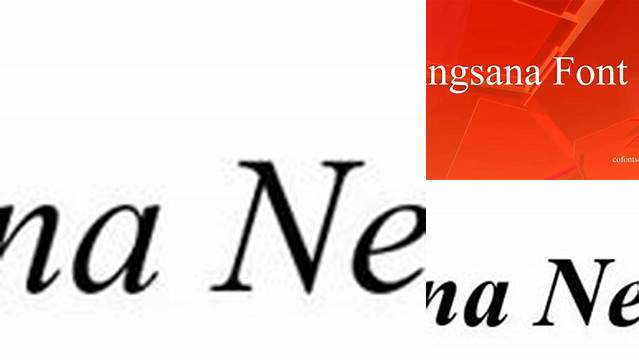
Angsana New Italic Font: Free Download & Usage Guide
Introduction to Angsana New Italic Font
Hey guys! Ever stumbled upon a font that just clicks? Well, let me introduce you to Angsana New Italic, a font that’s been a favorite for designers and casual users alike. This font isn't just another typeface; it's a blend of elegance and readability, making it perfect for a wide array of projects. Whether you're crafting a professional document, designing a website, or simply looking to spice up your social media posts, Angsana New Italic is a stellar choice. Its italicized style adds a touch of sophistication, making your text stand out while maintaining clarity. The balanced strokes and distinct letterforms ensure that your message is conveyed effectively, capturing the reader’s attention without overwhelming them. Seriously, the aesthetic appeal of this font is something else – it manages to be both modern and timeless, a rare feat in the world of typography. From invitations to reports, Angsana New Italic seamlessly fits into various contexts, enhancing the overall visual appeal of your work. And the best part? You can get it for free! We're diving deep into how you can download and use this fantastic font, so stick around.
The Appeal and Versatility of Angsana New Italic
So, why is Angsana New Italic so popular? Let’s break it down. First off, its legibility is top-notch. The characters are well-defined, ensuring that your text remains readable even at smaller sizes. This is crucial for documents, websites, and any medium where clear communication is key. Imagine reading a paragraph in a cluttered, hard-to-read font – frustrating, right? Angsana New Italic avoids this pitfall, offering a smooth and pleasant reading experience. But it's not just about practicality; this font also brings a certain flair to the table. The italic styling adds a touch of elegance and sophistication, making it ideal for projects where you want to convey a sense of professionalism or creativity. Think about it: a wedding invitation, a business report, or even a stylish blog post – Angsana New Italic can elevate each of these with its refined appearance. What truly sets Angsana New Italic apart is its versatility. It plays well with other fonts, making it easy to incorporate into existing designs. You can pair it with a bold sans-serif for headings or a classic serif for body text – the possibilities are endless. This adaptability makes it a valuable asset for any designer or content creator. Plus, its availability as a free download means you can access high-quality typography without breaking the bank. It's a win-win situation, really.
Key Features and Design Elements
Let’s get into the nitty-gritty of what makes Angsana New Italic tick. This font boasts a range of features that contribute to its overall appeal and usability. One of the standout elements is its balanced design. The strokes are neither too thick nor too thin, creating a harmonious visual rhythm that’s easy on the eyes. This balance is crucial for maintaining readability, especially in longer texts. The italic styling itself is beautifully executed, with a subtle slant that adds elegance without sacrificing clarity. It’s not overly stylized, which means it remains versatile enough for a variety of applications. Each character in Angsana New Italic has been carefully crafted, ensuring consistency across the entire typeface. This attention to detail is what elevates it from a simple font to a truly professional tool. The letterforms are distinct and well-defined, making it easy to differentiate between characters, even at smaller sizes. This is particularly important for body text, where readability is paramount. Beyond the individual characters, Angsana New Italic also excels in its spacing and kerning. The spacing between letters is just right, preventing them from appearing either too crowded or too far apart. This contributes to the overall legibility and visual appeal of the font. The kerning – the adjustment of spacing between specific pairs of letters – is also well-handled, ensuring a polished and professional look. These subtle details might seem minor, but they make a world of difference in the overall quality of the font.
How to Use Angsana New Italic in Your Projects
So, you’ve downloaded and installed Angsana New Italic – awesome! Now, let’s talk about how to actually use this fantastic font in your projects. Angsana New Italic is incredibly versatile, but like any tool, it’s best used thoughtfully. Think about the overall tone and style you’re aiming for in your project. Is it professional, elegant, or creative? Angsana New Italic can fit into many contexts, but it’s important to consider how it complements your other design elements. In general, Angsana New Italic works well for body text, especially when you want to add a touch of sophistication. Its clear and legible letterforms make it easy to read, even in longer passages. It’s also a great choice for headings and subheadings, where its italic styling can create a visual hierarchy and draw attention to key information. However, be mindful of using it sparingly for headings, as too much italic text can become overwhelming. When pairing Angsana New Italic with other fonts, consider using a sans-serif font for headings and Angsana New Italic for the body text. This creates a nice contrast and visual balance. Alternatively, you can pair it with a classic serif font for a more traditional look. Experiment with different combinations to see what works best for your project. Angsana New Italic is also a solid choice for print materials, such as brochures, flyers, and invitations. Its elegant style can elevate the look of your printed documents, making them more visually appealing. In the next sections, we’ll dive deeper into specific use cases and best practices for incorporating Angsana New Italic into your designs.
Best Practices for Incorporating Angsana New Italic in Design
To really make Angsana New Italic shine, let’s go over some best practices for incorporating it into your designs. First and foremost, readability is key. While Angsana New Italic is generally legible, it’s important to consider the context in which it’s being used. Make sure the font size is appropriate for the medium – what looks good on a large poster might not work well on a small screen. Also, pay attention to the contrast between the text and the background. If the text is too similar in color to the background, it will be difficult to read. Opt for a high-contrast combination, such as black text on a white background, or vice versa. Another important factor is letter spacing and line height. Adjusting these settings can significantly impact the readability of your text. If the letters are too close together, they’ll become cramped and difficult to distinguish. If the line height is too tight, the text will feel cluttered. Experiment with different settings to find the sweet spot. When using Angsana New Italic, it’s also crucial to avoid overusing it. While its elegant style is appealing, too much italic text can become distracting and make your design look cluttered. Use it strategically to highlight key information or add a touch of sophistication, but don’t let it dominate your entire design. Consider using Angsana New Italic for quotes, captions, or callouts, where its unique style can add visual interest without overwhelming the reader. Remember, less is often more when it comes to typography. In the following sections, we’ll explore some specific examples of how Angsana New Italic can be used in different design projects.
Real-World Examples and Use Cases
Okay, let’s get practical and look at some real-world examples of how Angsana New Italic can be used. This will give you a better sense of its versatility and how you can incorporate it into your own projects. First up, consider using Angsana New Italic for invitations. Its elegant style makes it a perfect choice for wedding invitations, party invites, and other special events. The italic styling adds a touch of sophistication, making your invitations look polished and professional. You can pair it with a simple sans-serif font for the details, such as the date, time, and location. Another great use case is in business documents. Angsana New Italic can elevate the look of your reports, presentations, and memos. Its clear and legible letterforms ensure that your message is conveyed effectively, while its elegant style adds a touch of professionalism. Use it for headings, subheadings, and even body text to create a cohesive and visually appealing document. Angsana New Italic is also an excellent choice for website design. You can use it for headings, subheadings, and body text to create a stylish and readable website. Its versatility allows it to fit into various design aesthetics, from modern to traditional. Just be mindful of the font size and contrast to ensure optimal readability on different devices. For marketing materials, such as brochures and flyers, Angsana New Italic can add a touch of elegance and sophistication. Use it to highlight key information, such as headlines, taglines, and calls to action. Its unique style will help your marketing materials stand out and capture the attention of your audience. These are just a few examples, guys. The possibilities are endless! Angsana New Italic is a versatile font that can be used in a wide range of projects.
Conclusion: The Enduring Appeal of Angsana New Italic
Alright, guys, we’ve reached the end of our journey into the world of Angsana New Italic. I hope you’ve found this guide helpful and that you’re now ready to download and use this fantastic font in your own projects. Let’s recap what we’ve covered. Angsana New Italic is a versatile and elegant font that’s perfect for a wide range of applications, from invitations to business documents to website design. Its italic styling adds a touch of sophistication, while its clear and legible letterforms ensure that your message is conveyed effectively. We’ve discussed where you can download Angsana New Italic for free, highlighting reliable websites and emphasizing the importance of downloading from trusted sources. We’ve also walked through the steps to safely download and install the font on your computer, as well as best practices for incorporating it into your designs. By following these guidelines, you can ensure that Angsana New Italic looks its best in your projects. We’ve explored real-world examples and use cases, giving you inspiration for how you can use Angsana New Italic in different contexts. From invitations to marketing materials, this font can elevate the look of your designs and help you communicate your message effectively. Finally, we’ve addressed some common issues you might encounter with font installation and usage, providing you with troubleshooting tips to resolve any problems. So, what’s the takeaway here? Angsana New Italic is a valuable asset for any designer or content creator. Its enduring appeal lies in its blend of elegance, readability, and versatility. Whether you’re a seasoned professional or just starting out, this font is a worthy addition to your typography toolkit.